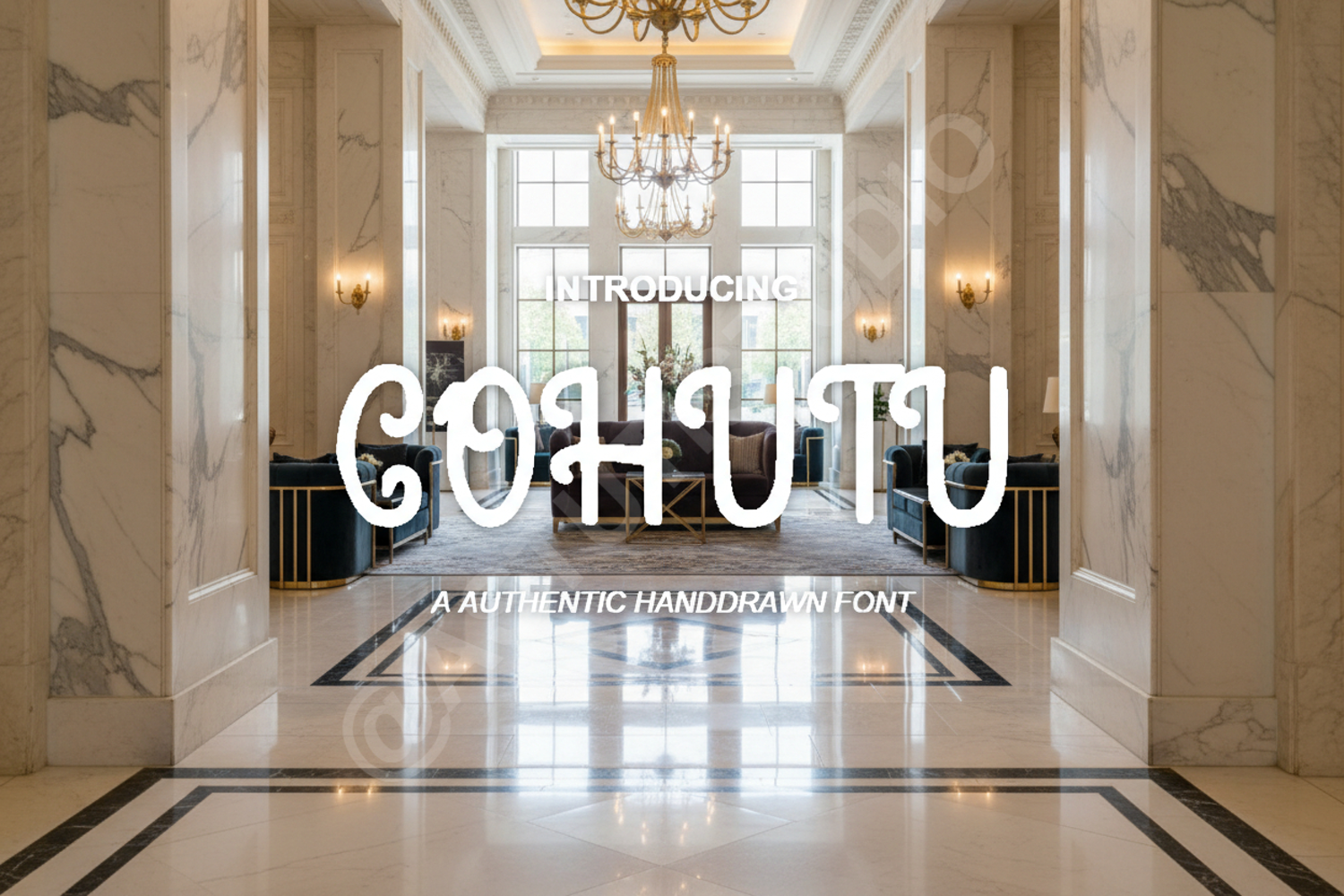
Cohutu - Modern Geometric Display Sans
Cohutu
Elevate your creative projects with Cohutu, a premium geometric display sans-serif font that embodies modern sophistication and precision. Designed with a focus on balanced proportions and clean, architectural lines, Cohutu provides a versatile foundation for designers seeking a high-end, contemporary aesthetic. Whether you are building a brand from the ground up or refreshing a digital interface, this font delivers professional clarity and style.
- Branding and Identity: Create a distinctive and authoritative brand presence.
- Logo Design: Perfect for sleek, minimalist, and luxury wordmarks.
- Editorial Design: Ideal for high-impact headlines in magazines and lookbooks.
- Digital Marketing: Enhance social media graphics and website headers with readable, modern type.
- Premium Packaging: Add a touch of elegance and modernism to retail products.